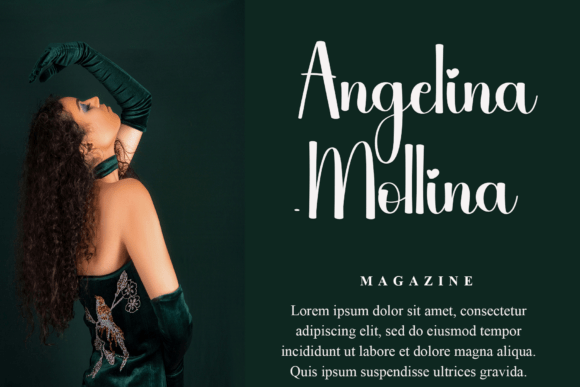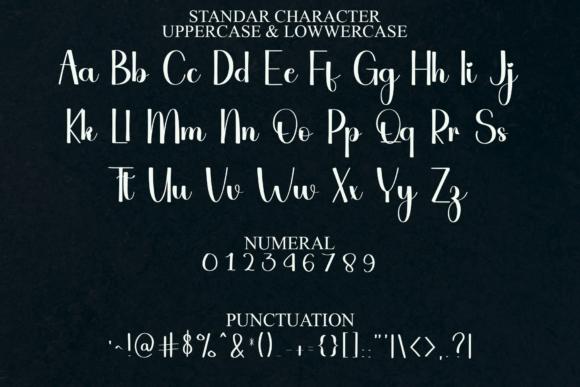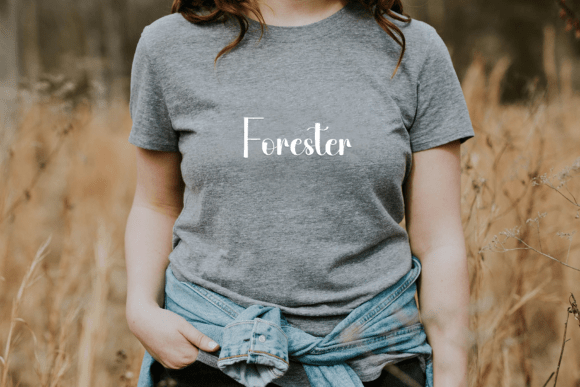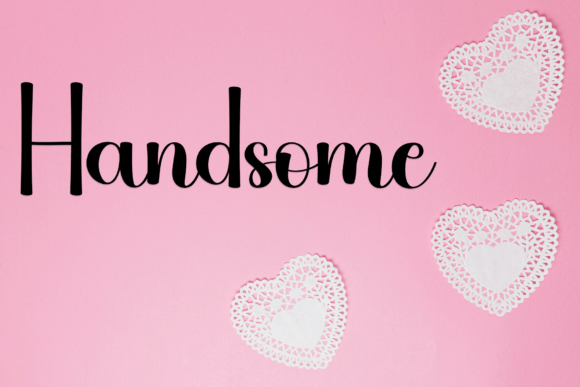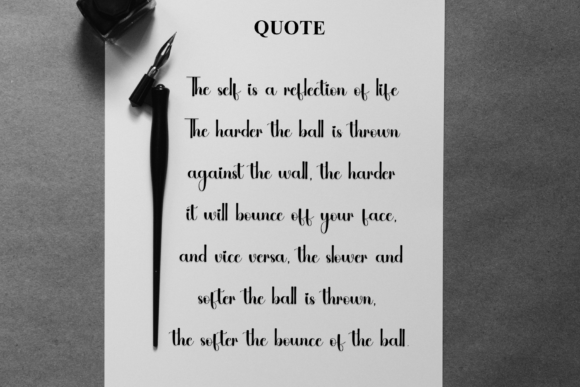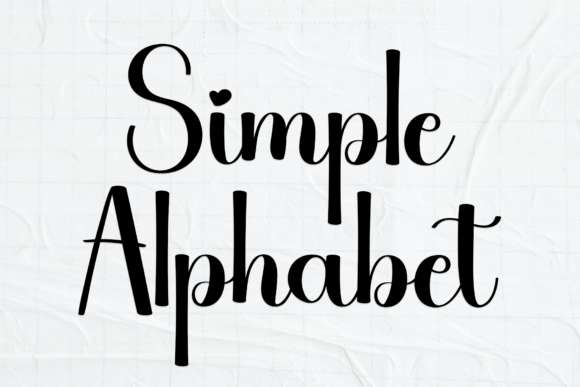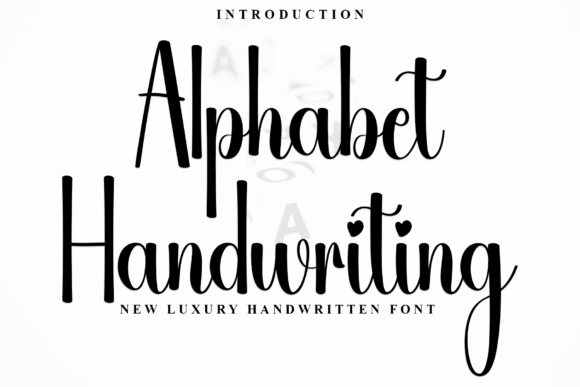
Introducing Alphabet Handwriting Font: Elevate Your Designs with Elegance
Are you tired of using the same old fonts in your designs? Look no further! Alphabet Handwriting Font is an exquisite handwritten font that is sure to become your new favorite. With its classy calligraphic influences and contemporary feel, this font is perfect for designers and crafters looking to add a touch of elegance to their projects.
The Perfect Blend of Classic and Modern
Alphabet Handwriting Font strikes the perfect balance between traditional calligraphy and modern design. Its flowing lines and delicate curves evoke a sense of sophistication and refinement, while its fresh and contemporary feel ensures it remains relevant and on-trend. Whether you’re working on a branding project, creating wedding invitations, or designing social media graphics, this font is sure to impress.
What Sets Alphabet Handwriting Font Apart
So, what makes Alphabet Handwriting Font so special? Here are just a few features that set it apart from other fonts:
- Unique Character Set: Alphabet Handwriting Font features a unique character set that includes a range of letters, numbers, and punctuation marks. Each character has been carefully crafted to ensure that it is legible and visually appealing.
- Classy Calligraphic Influences: The font’s calligraphic influences give it a touch of elegance and sophistication. The flowing lines and delicate curves make it perfect for designs that require a high level of refinement.
- Contemporary Feel: Despite its classic influences, Alphabet Handwriting Font has a fresh and contemporary feel that makes it perfect for modern designs. It’s ideal for designers who want to create something that feels current and on-trend.
- Versatility: Alphabet Handwriting Font is incredibly versatile and can be used for a wide range of projects. Whether you’re working on a logo, brochure, or social media graphic, this font is sure to deliver.
How to Use Alphabet Handwriting Font in Your Designs
Alphabet Handwriting Font is easy to use and can be incorporated into your designs in a variety of ways. Here are a few ideas to get you started:
- Logos and Branding: Use Alphabet Handwriting Font to create a unique and memorable logo for your brand. The font’s elegant lines and sophisticated feel make it perfect for businesses that want to convey a sense of refinement and luxury.
- Wedding Invitations: Add a touch of romance and elegance to your wedding invitations with Alphabet Handwriting Font. The font’s flowing lines and delicate curves make it perfect for formal events.
- Social Media Graphics: Use Alphabet Handwriting Font to create eye-catching social media graphics that will help your brand stand out. The font’s contemporary feel and versatility make it perfect for a wide range of social media platforms.
Tips for Getting the Most Out of Alphabet Handwriting Font
Here are a few tips for getting the most out of Alphabet Handwriting Font:
- Experiment with Different Sizes: Don’t be afraid to experiment with different font sizes to find the one that works best for your design. Alphabet Handwriting Font looks great in a variety of sizes, from large headings to smaller body text.
- Pair it with Other Fonts: Alphabet Handwriting Font pairs well with a range of other fonts. Try pairing it with a clean sans-serif font for a bold and eye-catching look.
- Use it for Headings and Titles: Alphabet Handwriting Font is perfect for headings and titles. Use it to add a touch of elegance and sophistication to your designs.
Alphabet Handwriting Font is an exquisite handwritten font that is sure to become a favorite among designers and crafters. With its classy calligraphic influences and contemporary feel, this font is perfect for a wide range of projects. Whether you’re working on a logo, wedding invitation, or social media graphic, Alphabet Handwriting Font is sure to deliver. So why wait? Fall in love with Alphabet Handwriting Font and bring your projects to the highest levels!